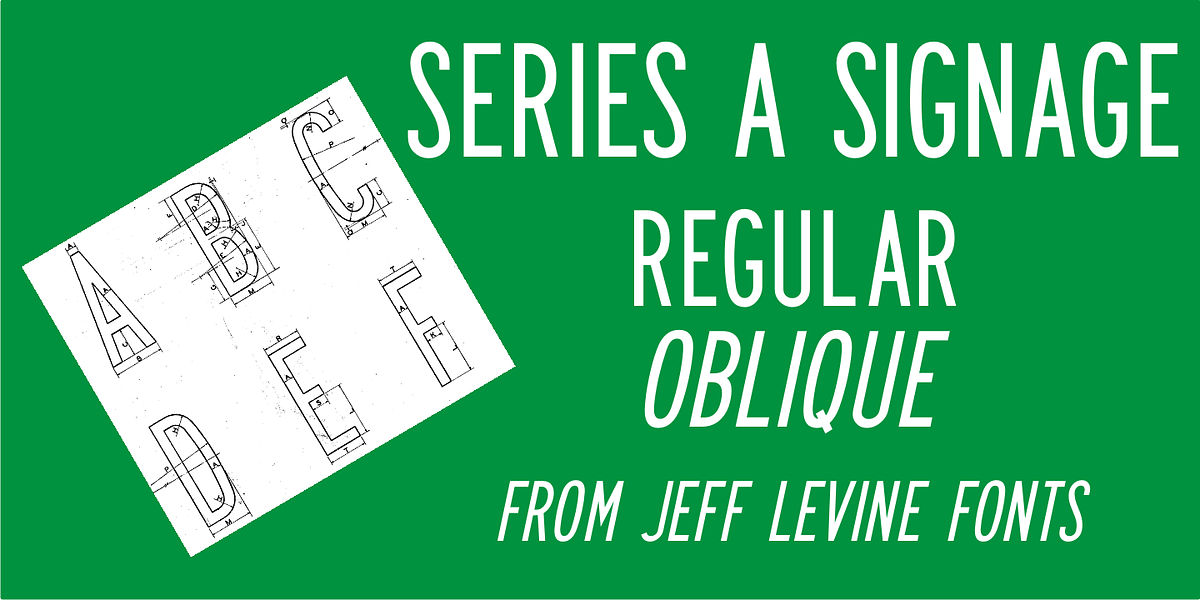
Series A Signage JNL Font Free Download is a clean, bold, and industrial-style typeface designed to evoke the classic look of signage and wayfinding systems. With its strong letterforms and simple, no-nonsense design, Series A is perfect for logos, posters, commercial signage, and any project that requires clarity and boldness.
This font combines a modern geometric approach with a vintage touch, making it ideal for creating high-visibility designs. Whether you’re crafting signage for events, branding for businesses, or bold marketing materials, Series A Signage JNL ensures your text stands out with authority.